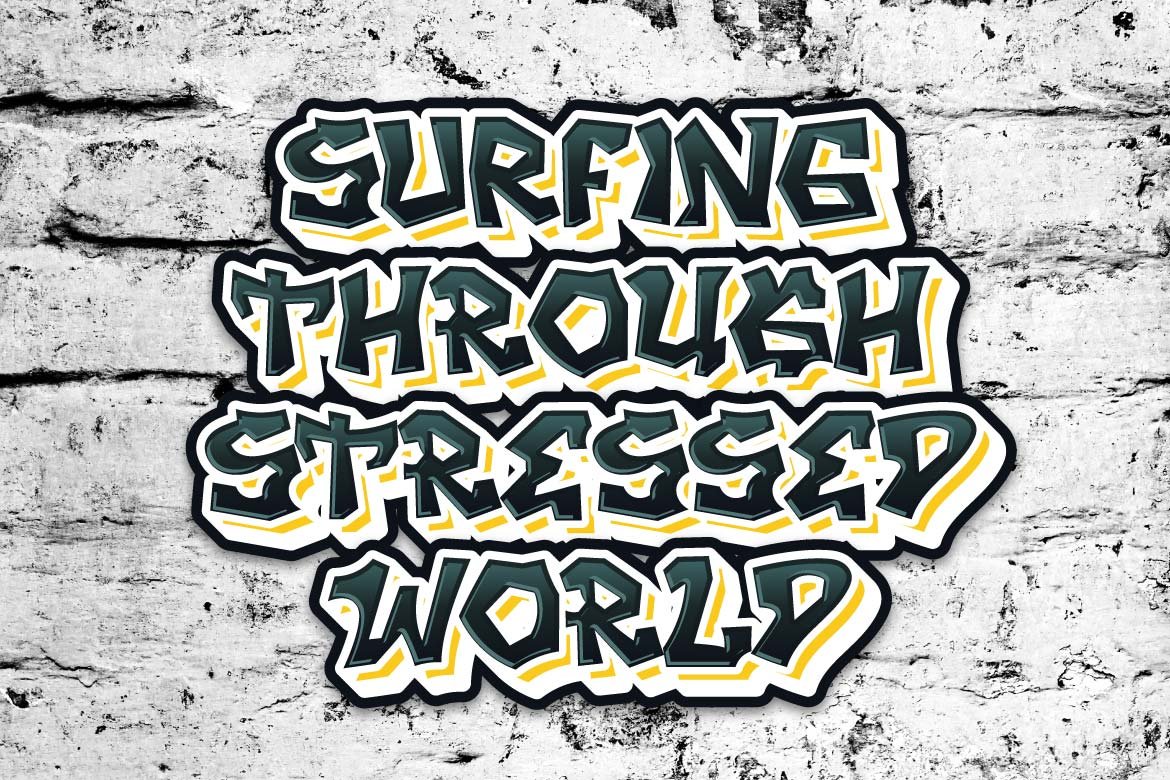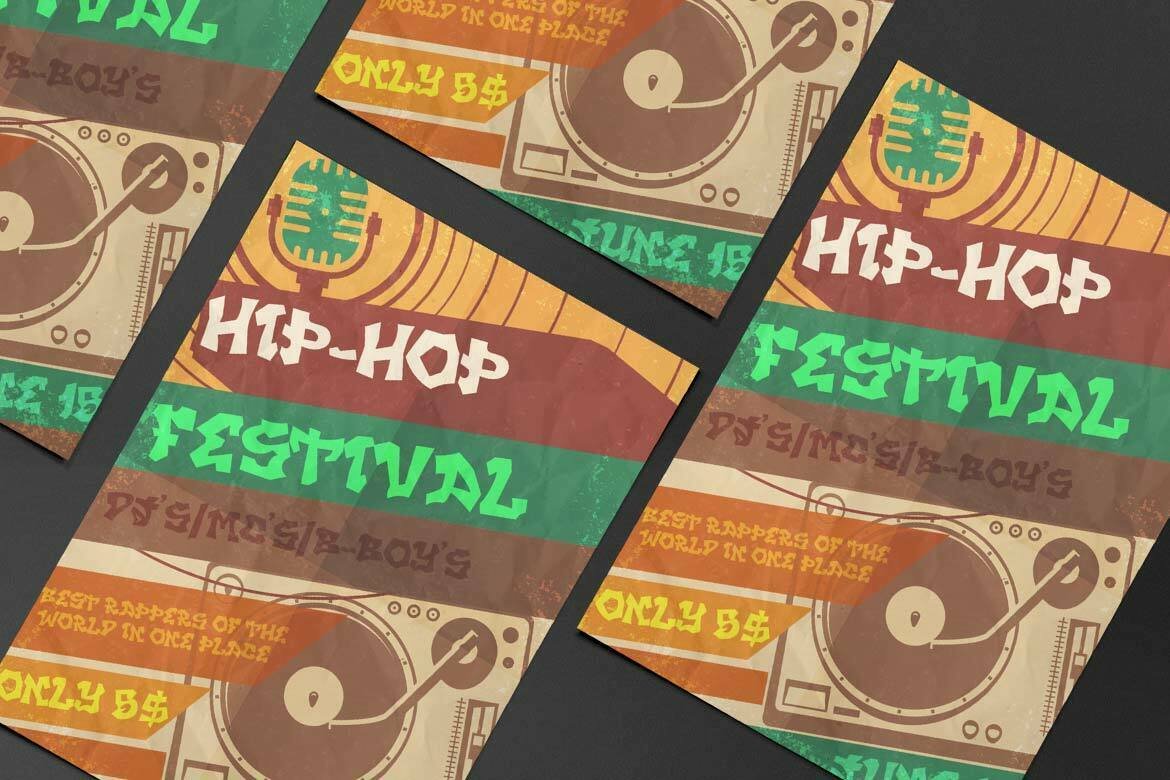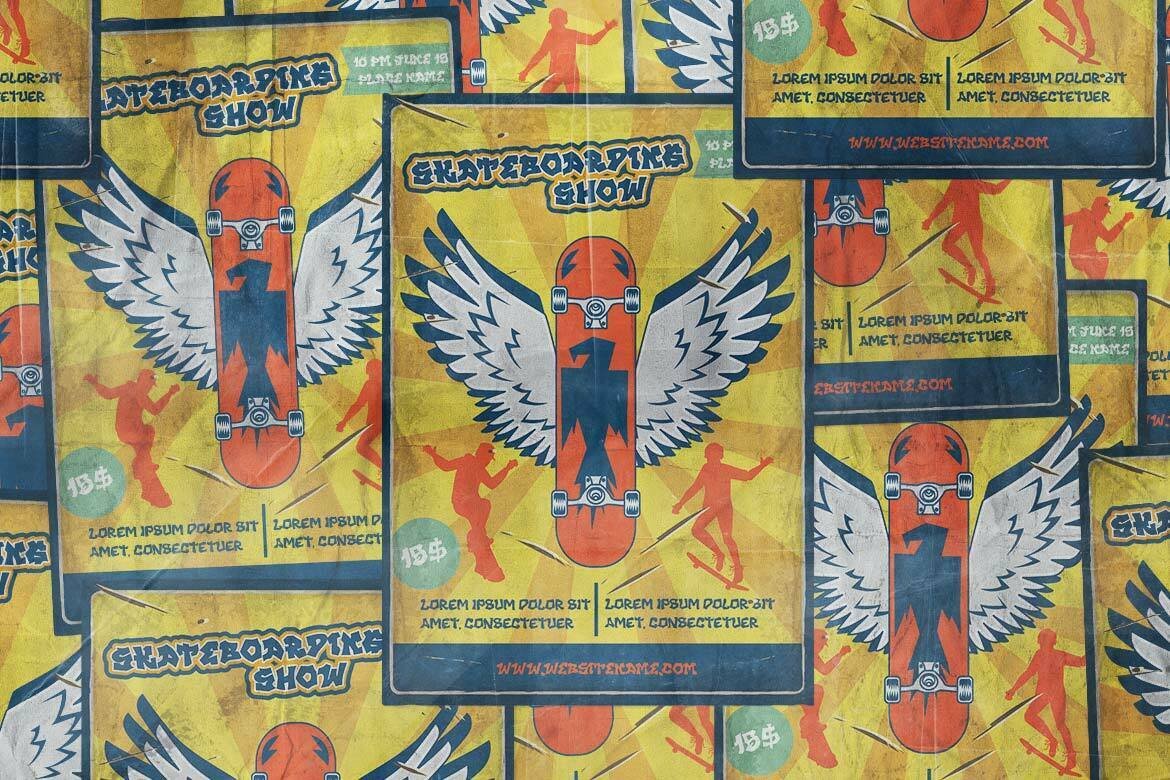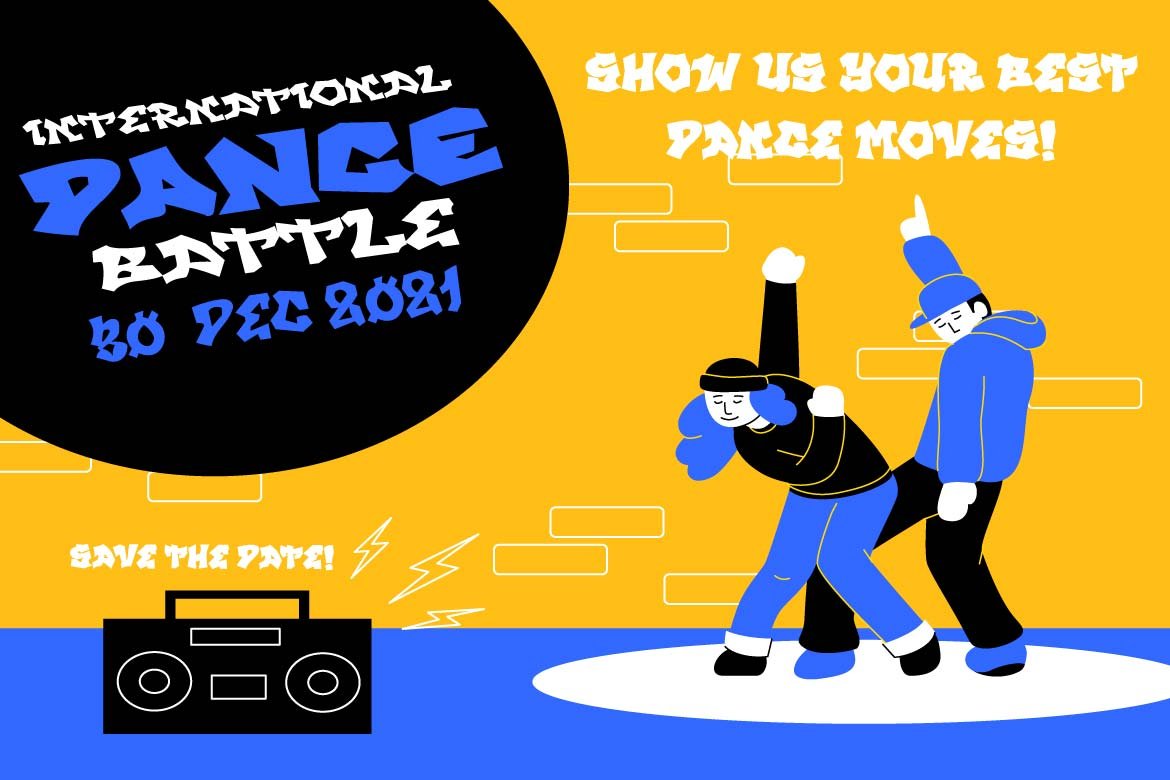
KINGER
We designed Kinger as a display font with the notion of excellent graffiti writing in mind.
We have polished Kinger into a typeface that is ideal for use in a variety of projects, since when you use this font, your complete project will appear more beautiful and pleasant in the eyes of many people.
This graffiti font is great for product logos, poster titles, headlines, packaging, film titles, logotypes, gorgeous writing, and trendy graffiti designs, among other things.
Of course, if you utilize this font in your numerous creative projects, they will be perfect and outstanding.
Use this typeface right away for your one-of-a-kind and remarkable projects.